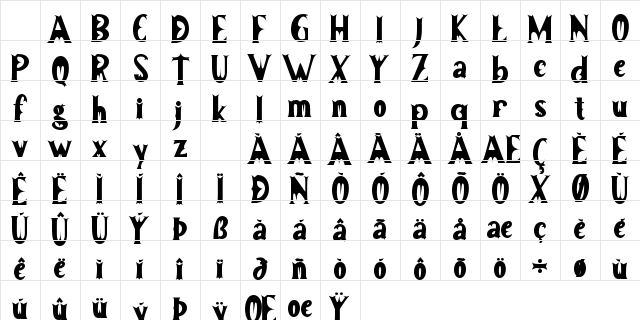
Complete Zombie Christmas Regular glyph index. Displaying only characters natively supported by Zombie Christmas Regular font.
Zombie Christmas is a composed and adaptable typeface that performs quietly and consistently across a wide range of design contexts.